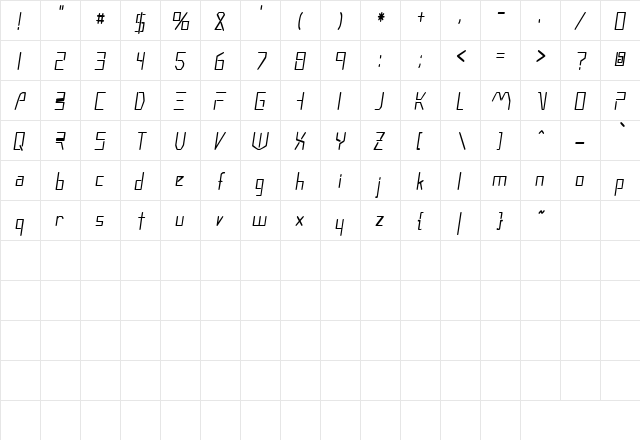
MoonwalkerCondensed Oblique
Design Context for MoonwalkerCondensed Typeface
MoonwalkerCondensed is a composed and adaptable typeface that performs quietly and consistently across a wide range of design contexts. The dynamic lean of this cut emphasises speed and emphasis in any layout. Its narrow stance lets it pack a punch even in space-constrained designs.
Pro Tip: Try MoonwalkerCondensed for annotation and caption copy alongside an upright companion — the contrast in angle creates a dynamic but ordered typographic system.